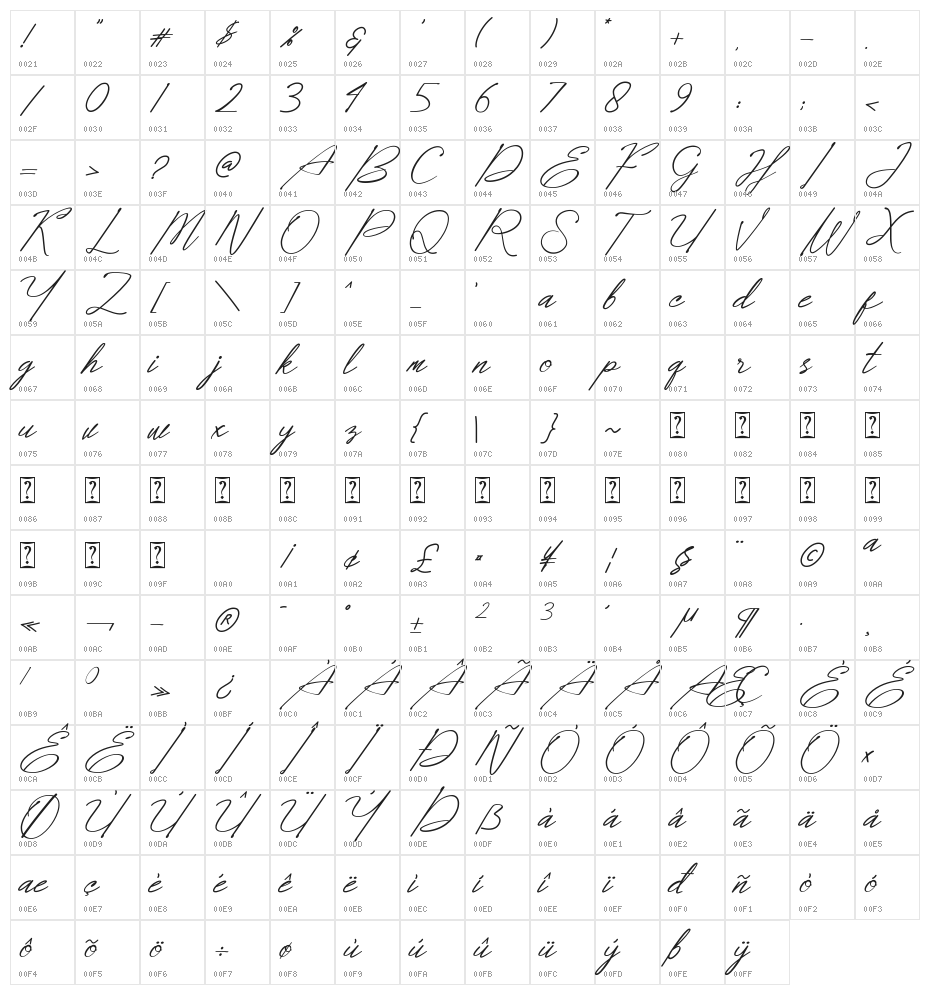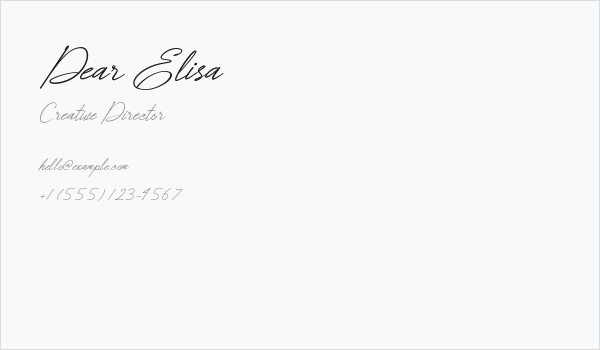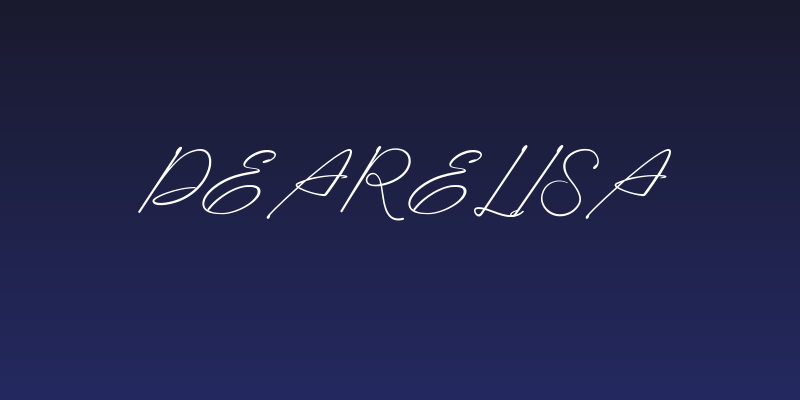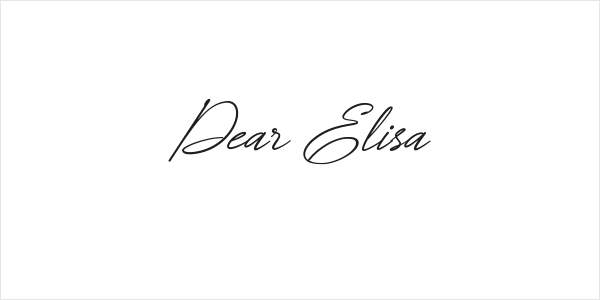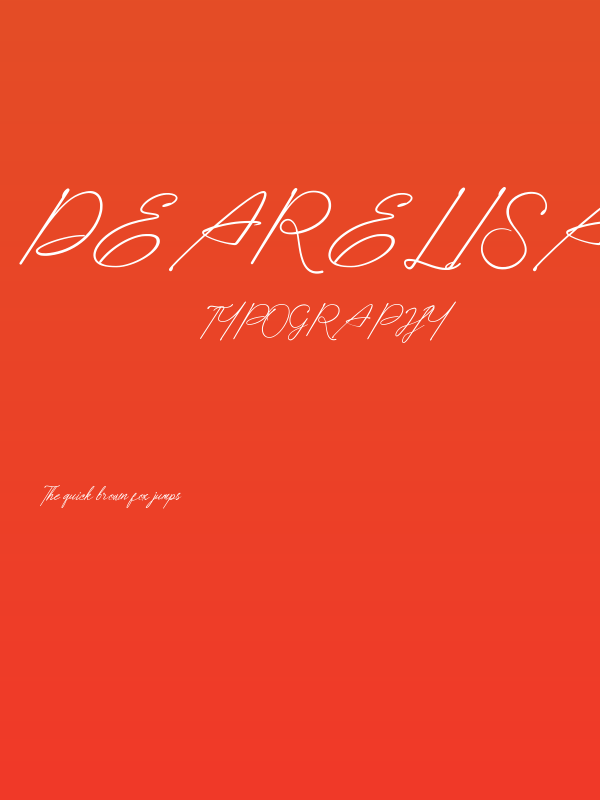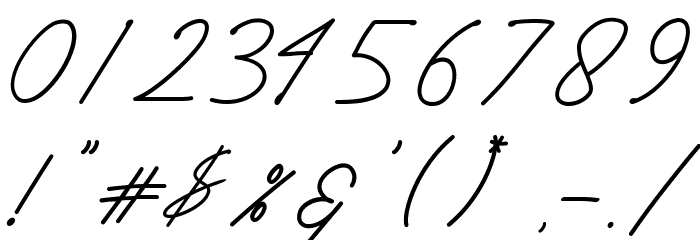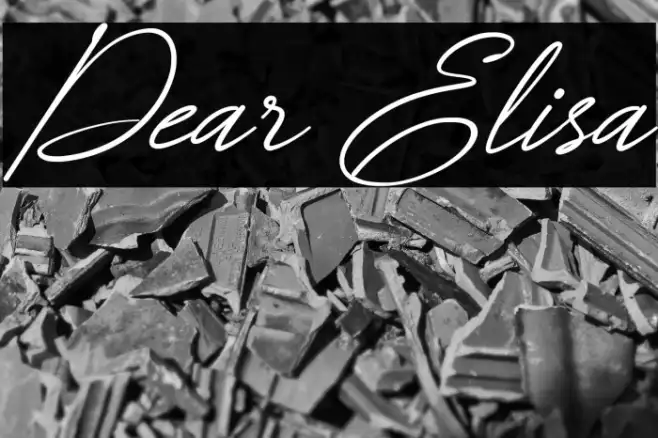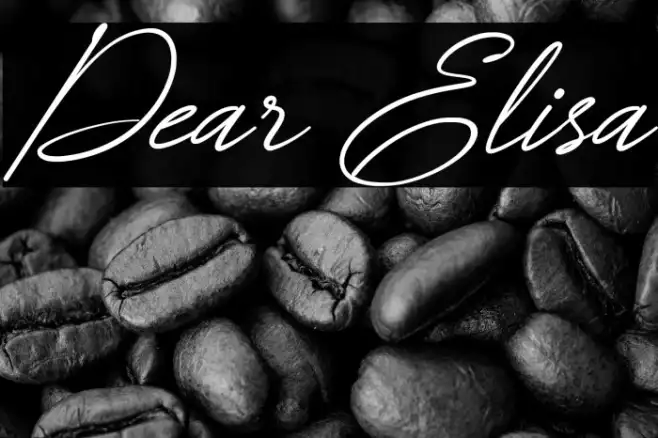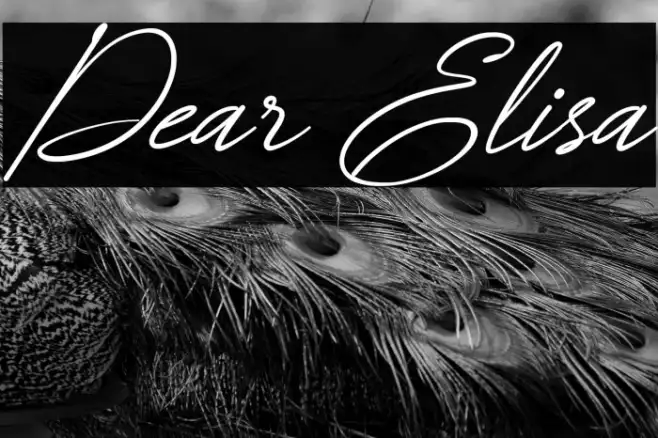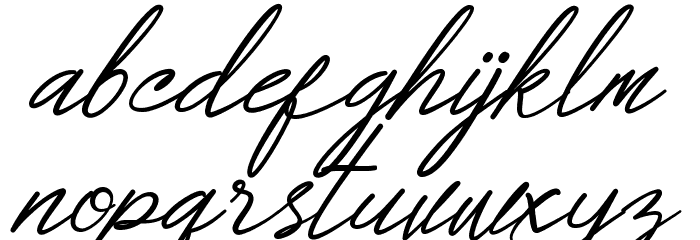
Dear Elisa Font
Dear Elisa Description
This elegant script font features flowing, connected letters that mimic the fluidity of handwriting. The uppercase letters are tall and slender, with a slight slant that adds a sense of motion and grace. The lowercase letters are more rounded and bold, providing a nice contrast to the delicate uppercase. The numbers and special characters maintain the same handwritten style, ensuring consistency throughout. This font's overall appearance is both sophisticated and approachable, making it suitable for a variety of creative projects.